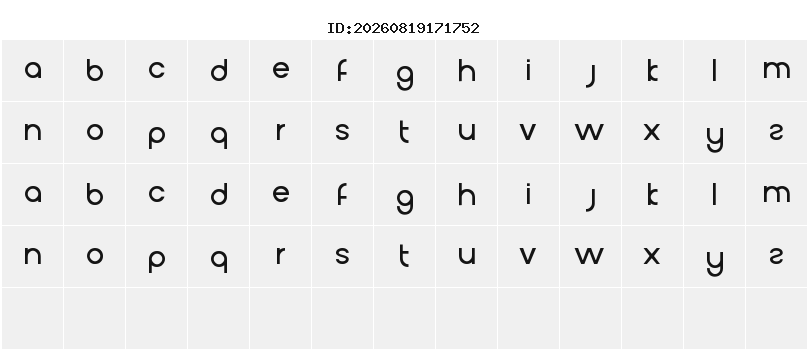
Si Buled Preview
• Font Name: Si Buled
• Full Font Name: Si Buled
• Version: Version 1.00 October 6, 2015, initial release
• Designer: Ihsan Hasanudin
• Manufacturer: 'Sanz Fonts
• Description: Dedicated to a Lovely friend named Yani Maryani H.
About Si Buled.ttf
Si Buled.ttf is a modern, elegant sans-serif font designed for ultimate readability and visual harmony. Perfect for branding, headlines, web design, and print materials.